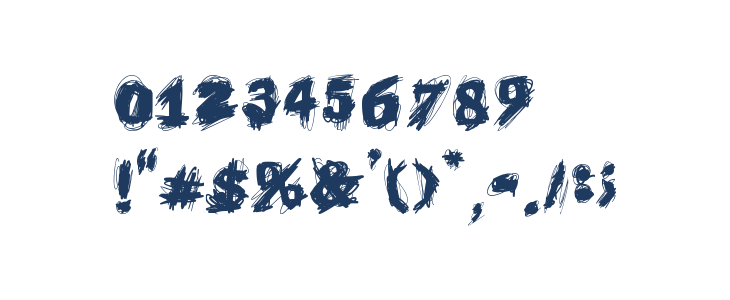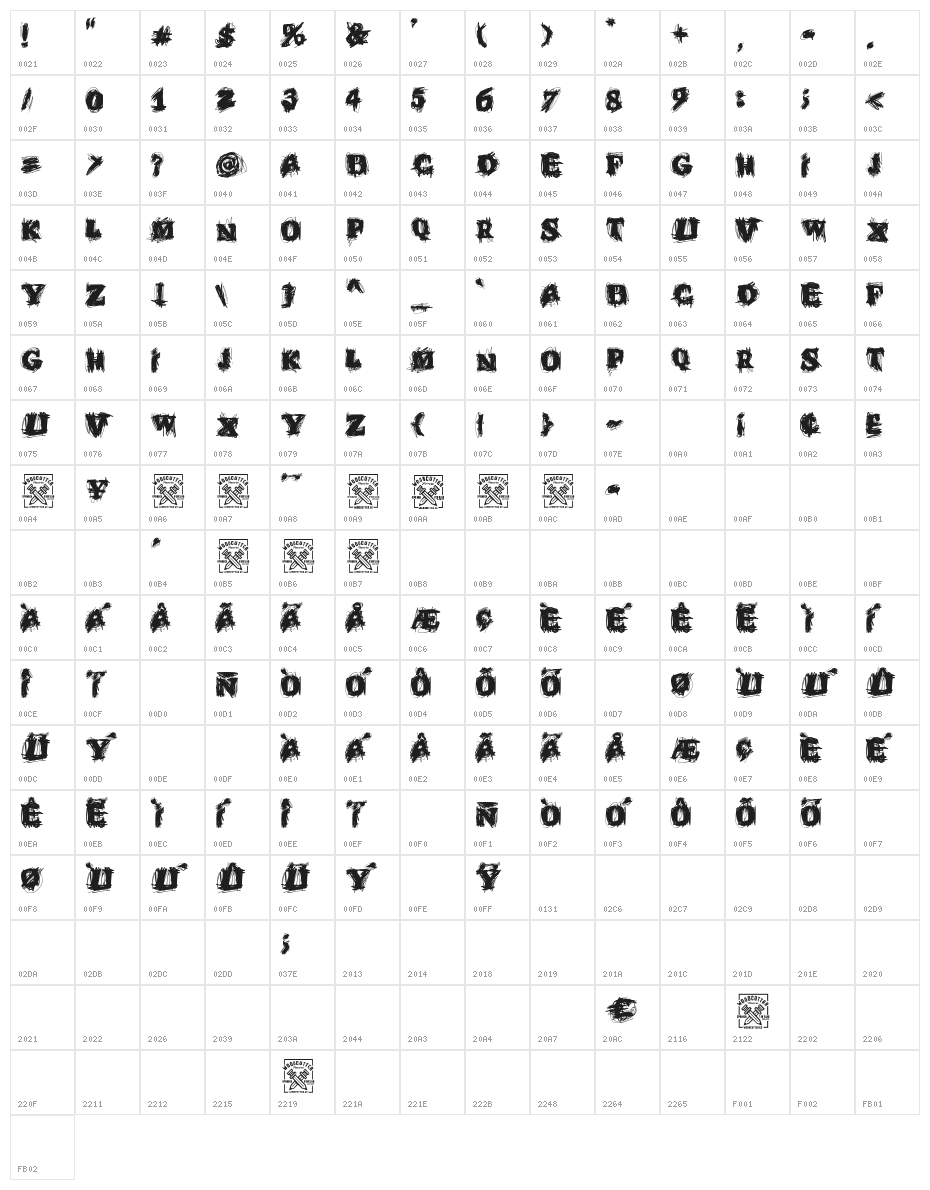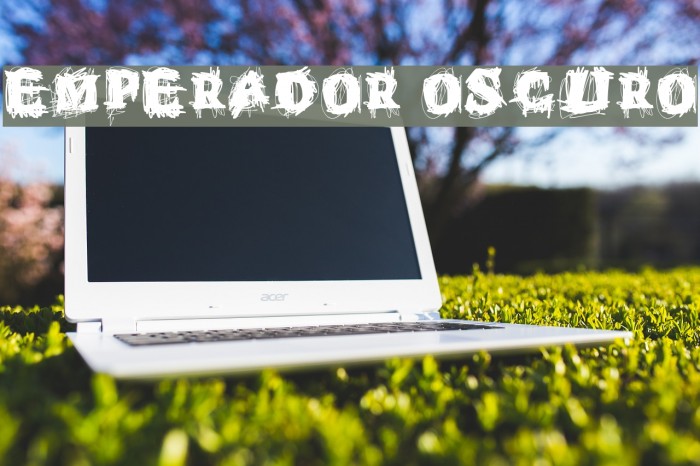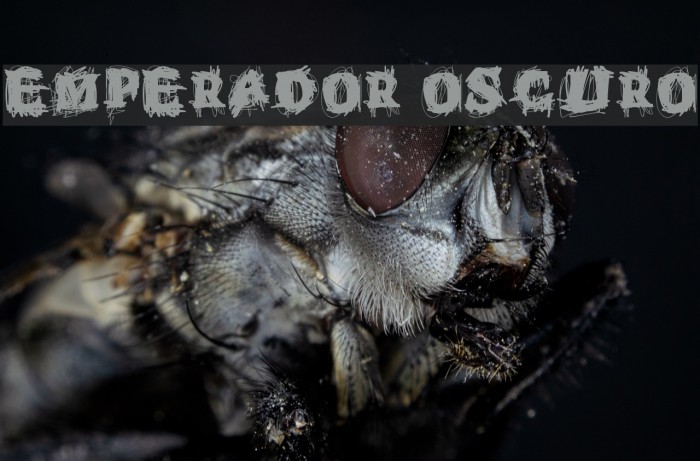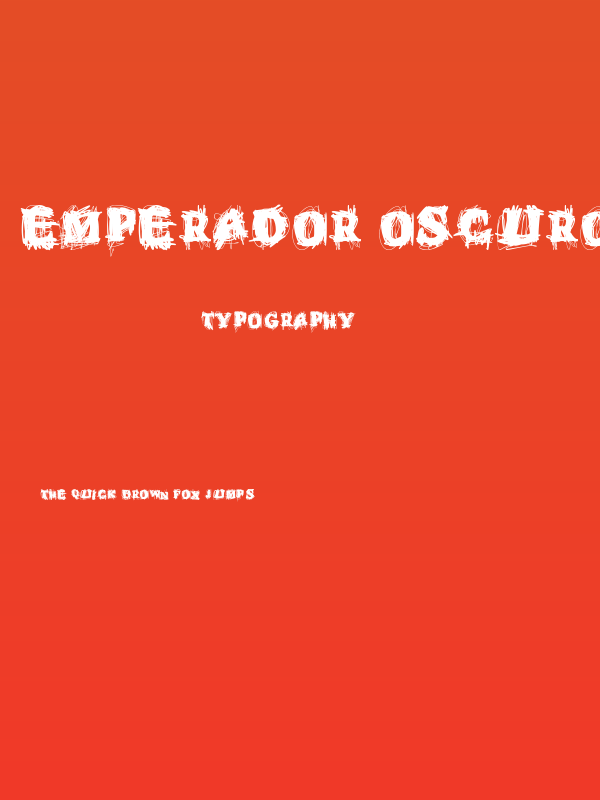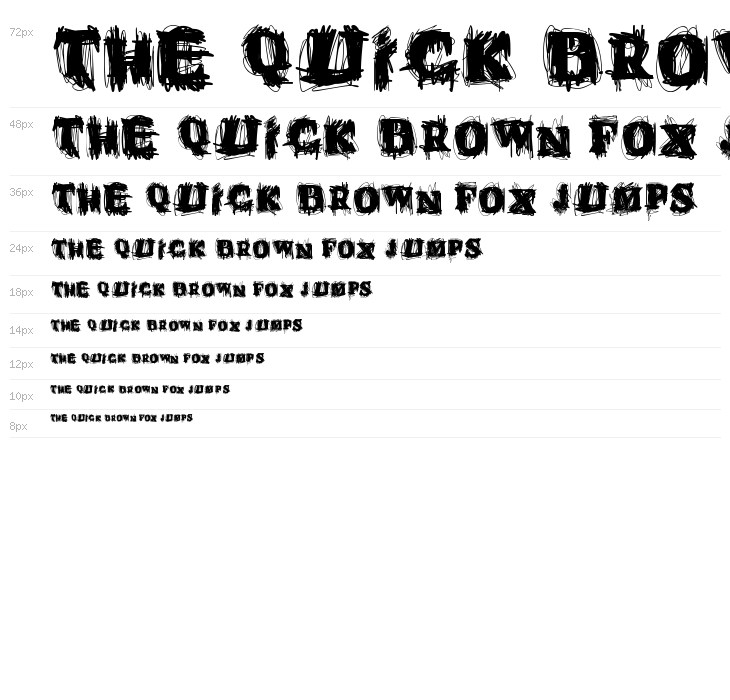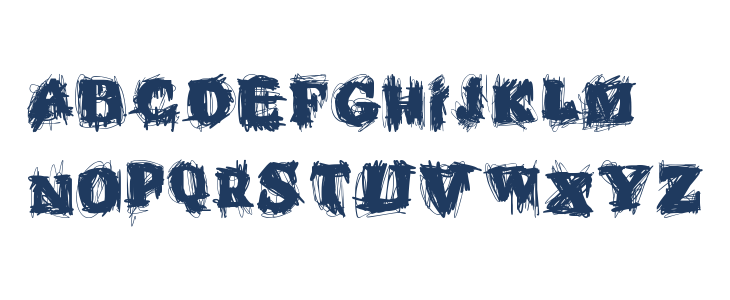
Emperador Oscuro Font
Emperador Oscuro Description
This font features a chaotic and energetic design, with each character appearing as if it has been hand-drawn with a rough, scribbled texture. The strokes are bold and irregular, giving the font a dynamic and edgy feel. The letters are highly stylized, with varying thicknesses and a sense of movement, making it stand out as a unique and artistic choice. The overall appearance is raw and unrefined, perfect for projects that require a bold statement or an unconventional look.
| Proposed Projects | Ideal for album covers, street art-inspired designs, edgy posters, or any project needing a rebellious and artistic touch. |